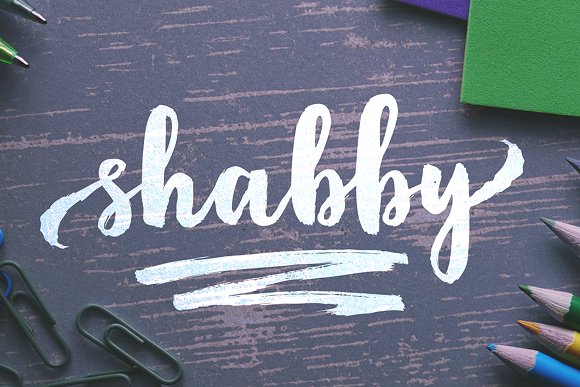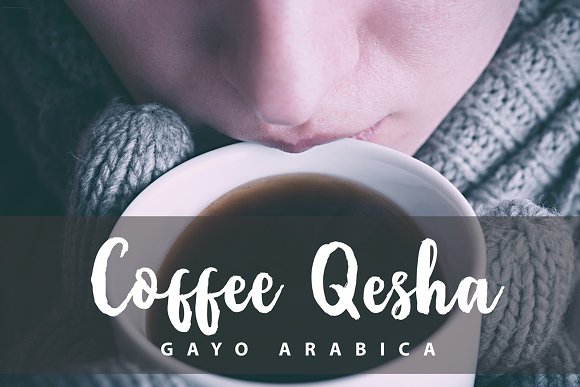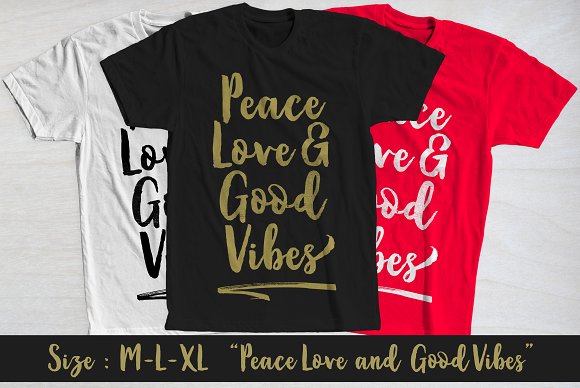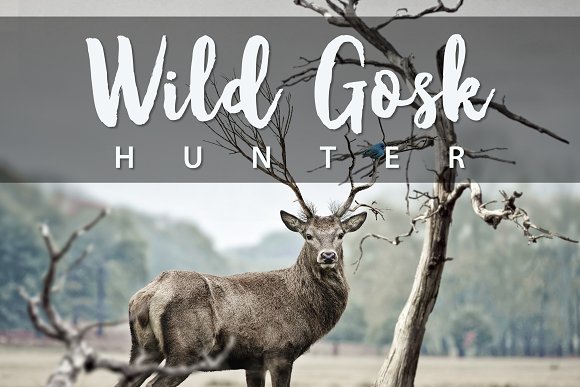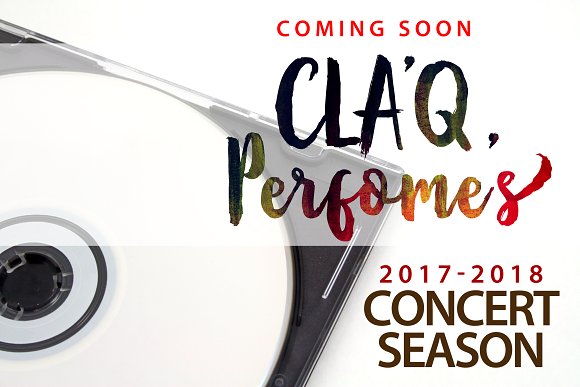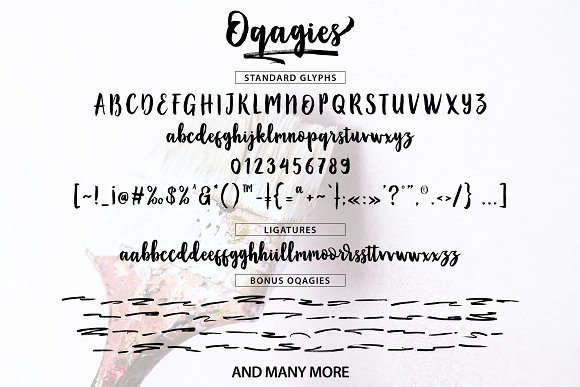
Introduction to Oqagies Font
There’s nothing quite like the thrill of starting a new creative project, when the possibilities seem endless and the excitement is palpable. For designers, it’s that moment when the blank page or canvas is filled with the promise of something truly unique and breathtaking. But, as we know, it’s not always easy to bring that vision to life. Sometimes, all it takes is the right design resource to spark that creative spark.
Enter the Oqagies Font, a stunning brush that includes an impressive 340 glyphs. This high-quality font is more than just a pretty face; it’s a valuable tool for designers looking to add a touch of elegance and sophistication to their work. With its transparent background, Oqagies Font is perfect for designers who want to create a seamless and cohesive look in their designs.
Key Features of Oqagies Font
- High-quality design resource for creative projects, perfect for logos, headings, and body text.
- Unique and creative font style, ideal for designers looking for a distinctive look.
- Transparent background, making it easy to layer over images or use as a standalone design element.
- Perfect for designers, artists, and creatives working on a wide range of projects, from branding and marketing materials to digital art and graphics.
Honest Review: Oqagies Font
I recently had the chance to work with the Oqagies Font, and I must say it’s been a game-changer for my creative projects. This high quality font has been a valuable addition to my design resource library.
What works well: ✨ The transparent background feature has made it incredibly easy to use in layered designs, and the clean lines have added a touch of sophistication to my work. The font is also incredibly versatile, allowing me to use it in a variety of creative projects, from branding to editorial design.
However, there are a few limitations: ⚠️ While the font is free to download, the available weights and styles are somewhat limited. Additionally, the font may not be as well-suited for use in smaller text sizes, which can be a bit of a challenge.
Overall, I’m really impressed with the Oqagies Font. Its high quality and versatility make it a valuable design resource, and I appreciate the transparency of the font’s design. If you’re looking for a clean, sophisticated font for your creative project, I would definitely recommend giving Oqagies a try.
- High quality design
- Clean lines and versatile design
How to Use Oqagies Font
Oqagies Font is a high-quality design resource ideal for creative projects requiring a unique and elegant touch. With its transparent background, this font can be easily integrated into various design platforms.
Tips for Getting the Most Out of Oqagies Font
To get the most out of Oqagies Font, consider the following tips:
- Use the font in conjunction with other design elements to create a cohesive look.
- Experiment with different font sizes and styles to achieve the desired effect.
- Combine the font with images or graphics to add depth and interest to your designs.
Oqagies Font is commonly used in:
- Brochures and infographics
Is the Oqagies Font suitable for high-quality printing?
Yes, the Oqagies Font is designed to be used in high-quality printing applications. With its high-quality design and transparent background, it’s perfect for creating professional-looking materials such as business cards, brochures, and posters. Simply install the font on your computer, and it will be available for use in your design software.